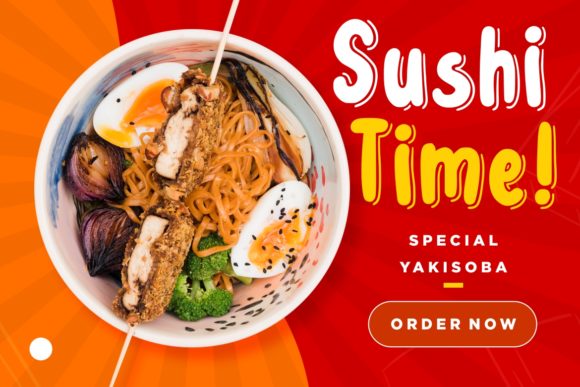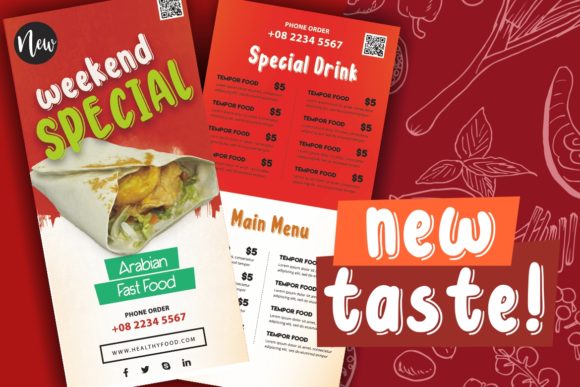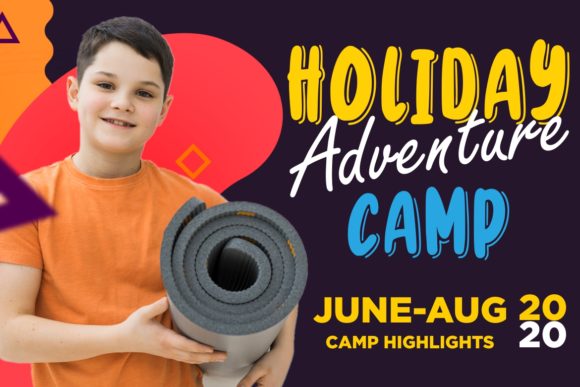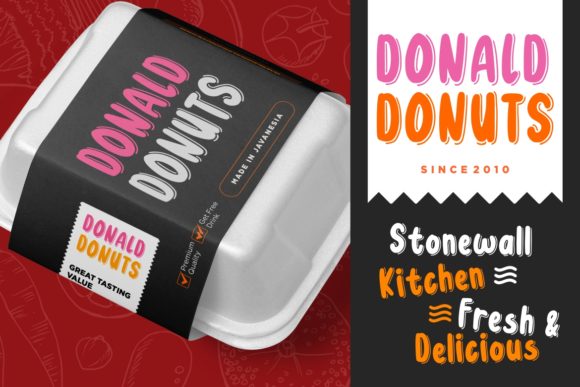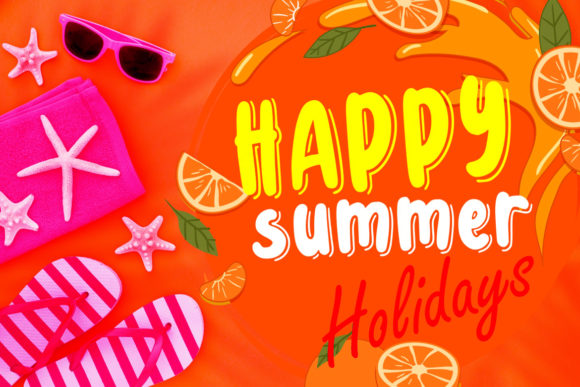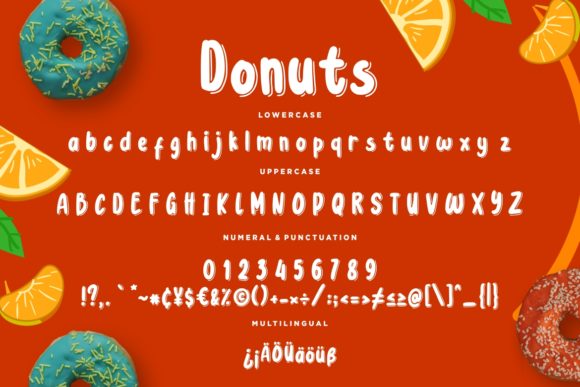
Sweet Inspiration
Have you ever found yourself in a creative rut, staring at a blank canvas or a blank screen, waiting for the perfect spark to ignite your next project? That’s exactly where I was when I stumbled upon the delightful Donuts Font. Its playful, chunky letters and cheerful vibe instantly lifted my mood and got my creative juices flowing.
Donuts Font is a sweet and charming display font designed to add a joyful touch to any craft or design project. Its purpose is to bring a smile to your face and a pop of color to your creations. Whether you’re a seasoned designer or a crafty hobbyist, Donuts Font is a valuable addition to your toolkit. Its versatility and charm make it perfect for adding a whimsical touch to invitations, social media graphics, or even packaging designs.
Key Features of Donuts Font
- Font Family: Donuts Font is a unique, hand-drawn font family with a variety of styles and weights.
- Character Set: Includes a wide range of characters, including Latin, Cyrillic, and Greek alphabets, as well as punctuation and symbols.
- Unique Characteristics: Features a playful, hand-drawn style with subtle texture and imperfections, giving it a distinctive and charming appearance.
Review of “Donuts Font”
Overall, I found “Donuts Font” to be a unique and eye-catching font choice. ✨ Its playful and whimsical feel makes it perfect for creating fun and youthful designs.
One of the standout features of this font is its versatility. ✨ It comes in a range of weights, from light to bold, making it suitable for a variety of applications, from signage to digital displays. The font’s rounded edges and subtle curves also add to its charm, making it a great choice for creative projects.
- ⚠️ Limited support for non-English languages: While the font itself looks great, it may not be the best choice for designs that require extensive text support in languages other than English.
- ⚠️ Not ideal for formal or professional designs: Due to its playful nature, “Donuts Font” may not be the best fit for formal or professional designs where a more serious tone is required.
Overall, I would recommend “Donuts Font” for designers looking to add a touch of whimsy to their projects. While it may not be suitable for every design, it’s a great choice for creative and fun projects where a playful font is needed.
The Donuts Font is perfect for creating playful and whimsical designs. Some common use cases include:
- Children’s party invitations
- Fun and quirky social media graphics
- Restaurant and café signage
Alternatives to Donuts Font
Great Vibes Font is a modern, elegant script font that is perfect for creative and artistic projects. It features a fluid and dynamic feel, making it ideal for use in branding, advertising, and packaging design.
Compared to Donuts Font, Great Vibes Font is more refined and sophisticated. While Donuts Font has a playful, quirky feel, Great Vibes Font is more polished and luxurious.
Use Great Vibes Font when you want to convey a sense of high-end quality and sophistication in your design.
Carolyna Pro Font is a beautiful, elegant script font that is perfect for use in branding, advertising, and editorial design. It features a classic, timeless feel that is both sophisticated and refined.
Compared to Donuts Font, Carolyna Pro Font is more traditional and less playful. While Donuts Font has a whimsical, childlike feel, Carolyna Pro Font is more mature and elegant.
Use Carolyna Pro Font when you want to convey a sense of tradition and sophistication in your design.
Carolyna Pro Font is replaced with Lobster Font
Lobster Font is a fun, casual script font that is perfect for use in creative and artistic projects. It features a playful, handwritten feel that is both fun and expressive.
Compared to Donuts Font, Lobster Font is more casual and less elegant. While Donuts Font has a quirky, artistic feel, Lobster Font is more relaxed and informal.